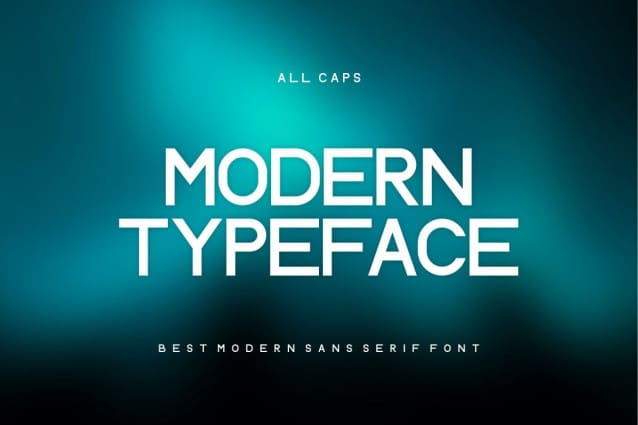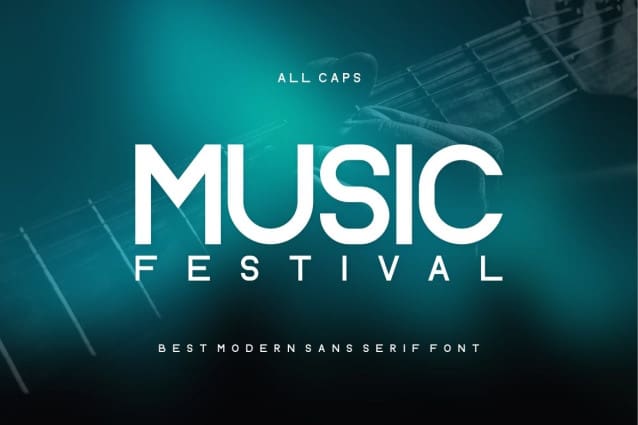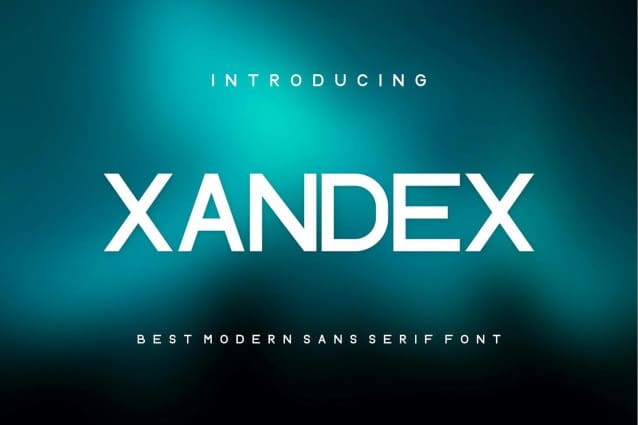
Xandex Font
Xandex Font is a bold, modern display font with a playful touch, ideal for attention-grabbing headlines, Logos, and miscellaneous design projects. Versatile and readable in digital and print, Xandex adds a dynamic touch to your message